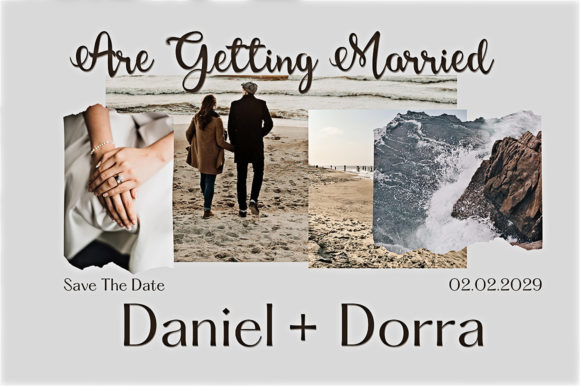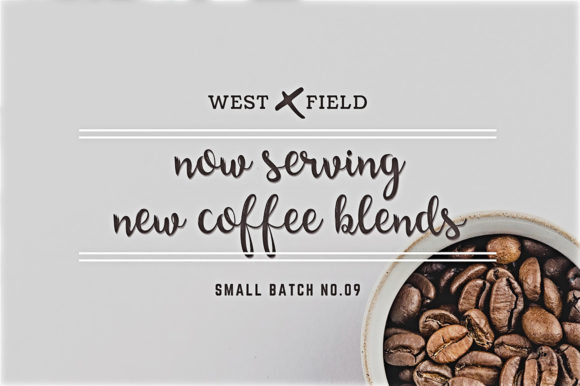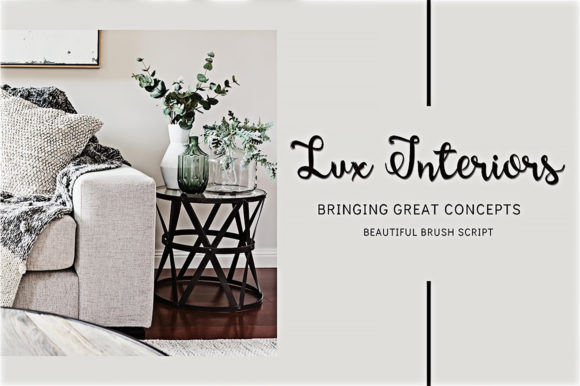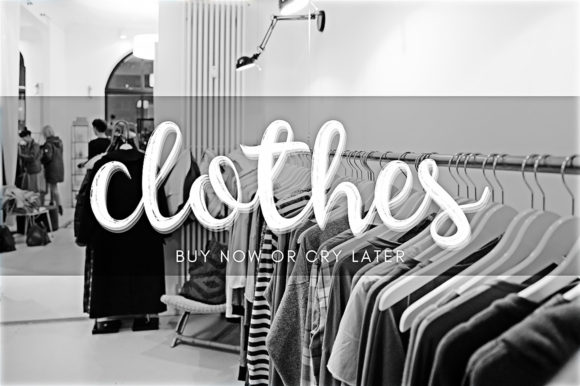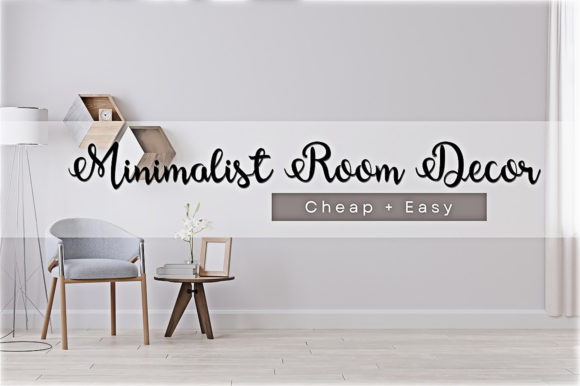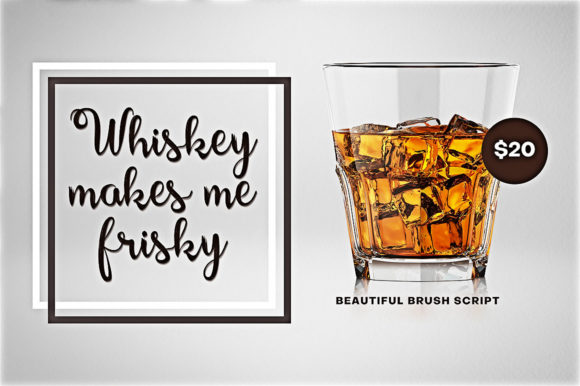
Introduction to Natasha Font Font
Fonts play a crucial role in design, and the Natasha Font font is a typeface that brings both character and versatility to any project. Whether you’re working on a branding project, a website, or a print design, the Natasha Font font offers a unique style that can elevate your work.
Natasha is a simple, unique, and easy-to-apply script font.
You can add this elegant font to wedding invitations, business cards, greeting cards, and various other ideas Your options with this font are limitless.
Key Features of Natasha Font Font
Why Choose Natasha Font Font?
The Natasha Font font is more than just a typeface – it’s a design tool that helps you communicate your message with style and clarity. Its unique character set and versatile design make it suitable for a wide range of applications, from elegant invitations to bold headlines.
With its carefully crafted letterforms and balanced proportions, the Natasha Font font ensures readability and visual appeal across all mediums.
What makes Natasha Font font special?
The Natasha Font font stands out with its unique design, exceptional readability, and versatility across various design applications.